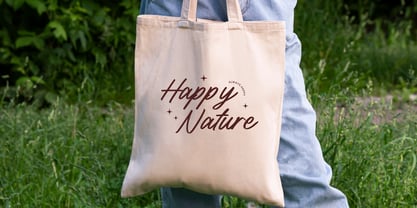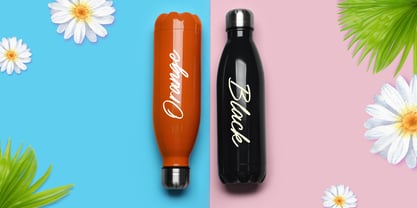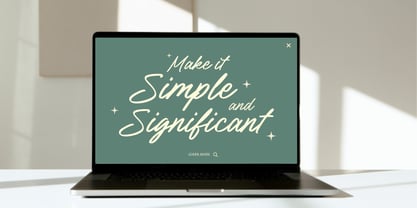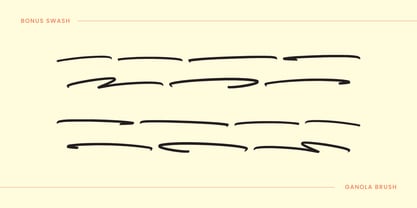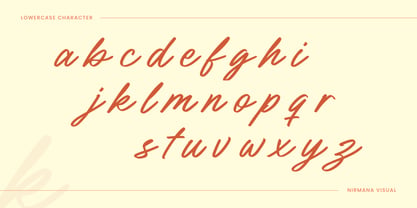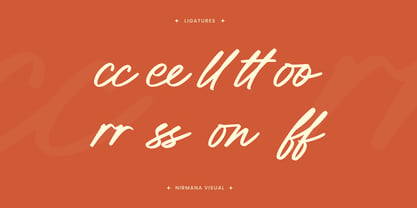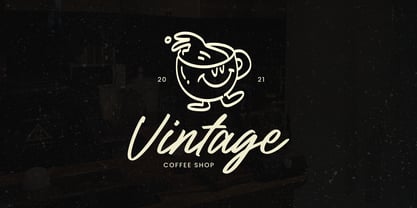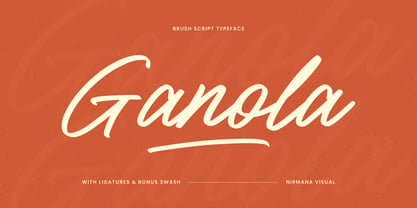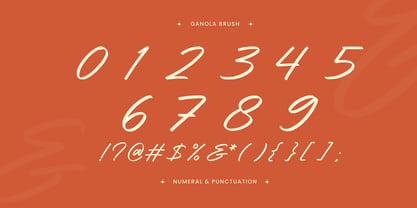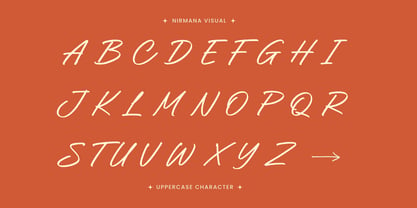
Ganola Brush
by Nirmana Visual
The Ganola Brush Font Family was designed by Sigit Dwipa and published by Nirmana Visual. Ganola Brush contains 1 styles. More about this family
Ganola is a sophisticated hand-lettering font that embodies a vintage script style with a stylish, flowing brush line. Designed for logo and branding applications, Ganola offers an elegant yet bold aesthetic, making it perfect for businesses seeking a classic yet modern appeal. Its fluid strokes and retro charm enhance brand identity, adding warmth and personality. Whether for packaging, signage, or merchandise, Ganola delivers a timeless and artistic touch with its handcrafted authenticity
Designers: Sigit Dwipa
Foundry: Nirmana Visual